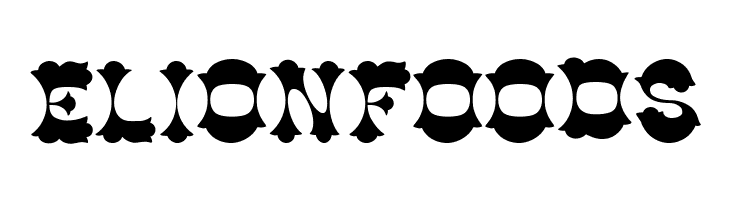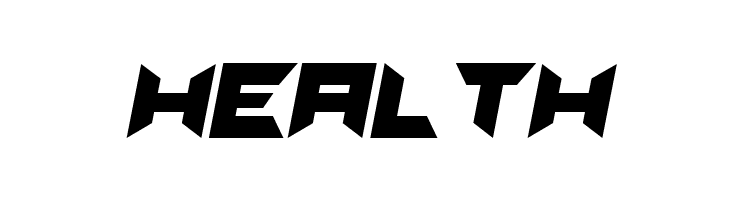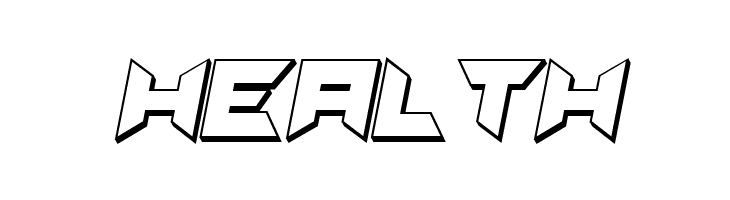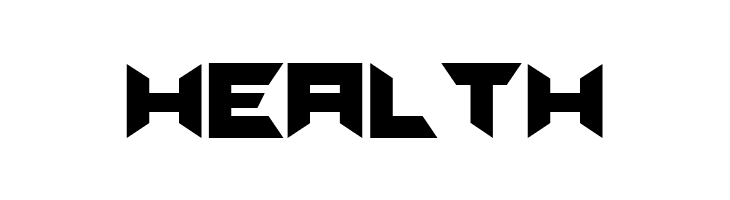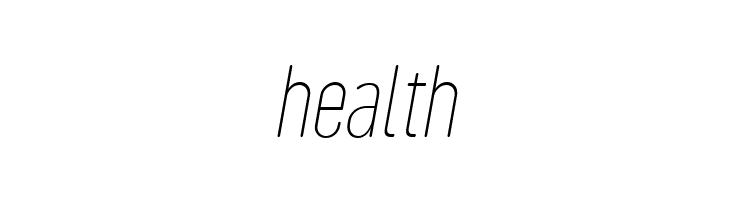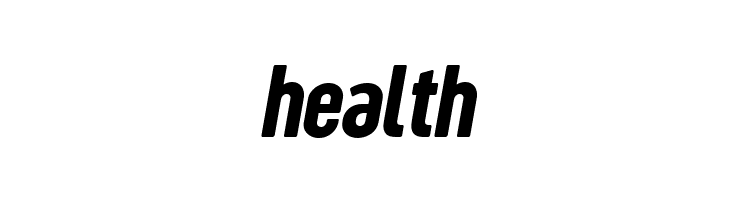
A bold, angular font inspired by ancient Greek inscriptions.
A playful collection of game-themed symbols for decorative use.
A bold, distressed font with a grunge texture and 3D shadow effect.
A bold, abstract font with jagged, irregular edges and a graffiti-like style.
A bold, playful font with exaggerated serifs and a whimsical style.
A distressed, grunge-style font with a bold, rugged appearance.
A bold, geometric font with thick, rounded strokes and a modern aesthetic.
A bold, rugged font with a distressed, hand-crafted appearance.
A bold, geometric font with a modern, striped design.
A bold, futuristic font with angular, dynamic letterforms.
A bold, angular font with a dynamic, geometric style.
A rugged, textured font with a vintage, organic feel.
A whimsical, hand-drawn style font with playful, wavy strokes.